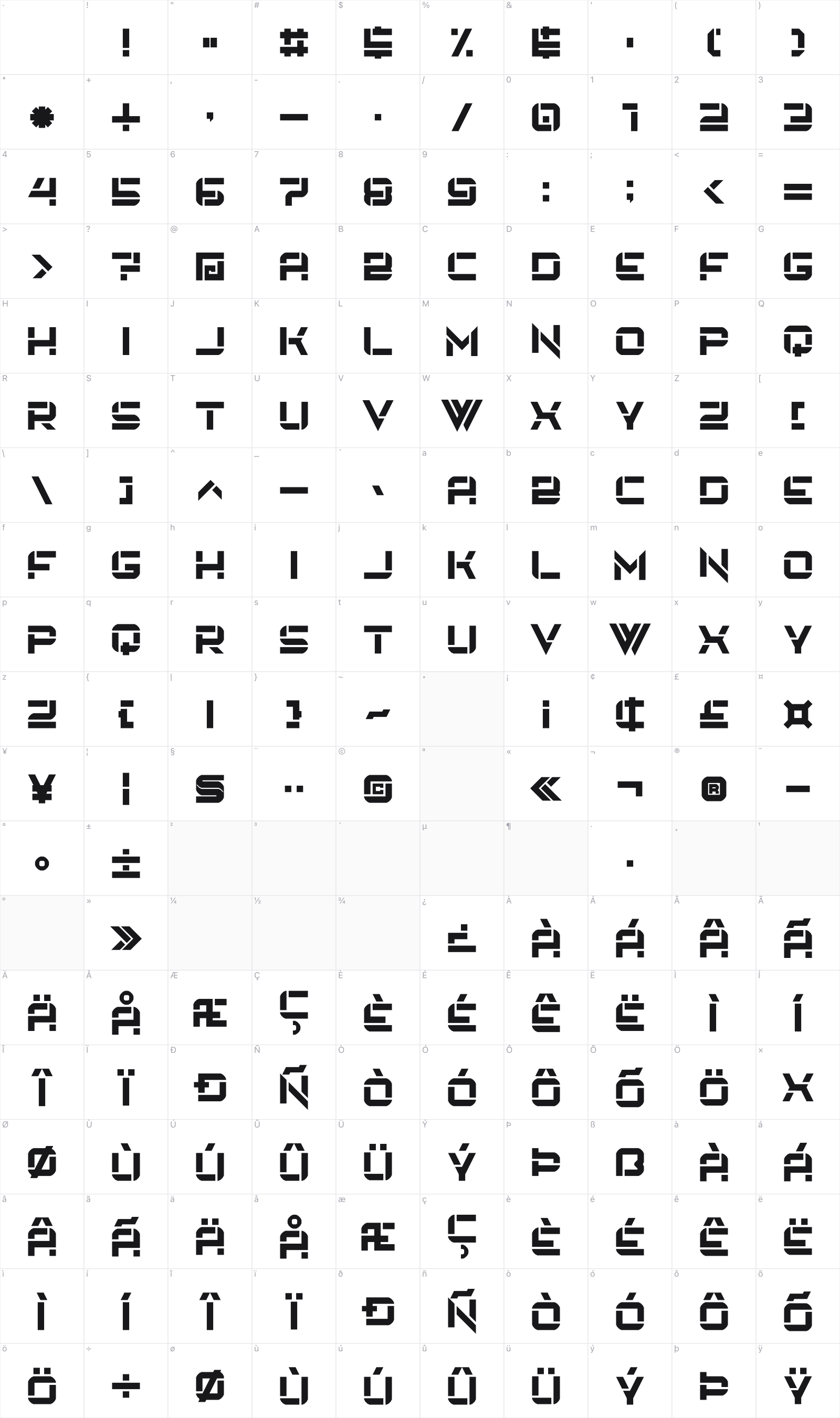
Embryonic World
Embryonic World is a bold modular techno font built on a strict grid with dramatic diagonal cuts that fracture each character into segmented, stencil-like forms. Created via FontStruct by Jéson Garnica, it carries a raw, mechanical energy rooted in sci-fi and cyberpunk aesthetics. Best used large, where its sharp incisions and heavy geometry can do their work.